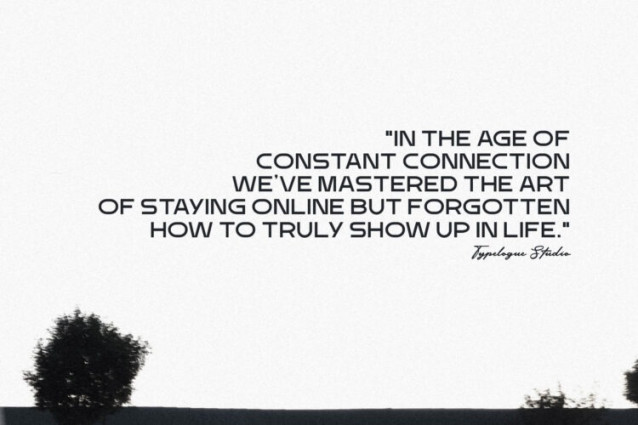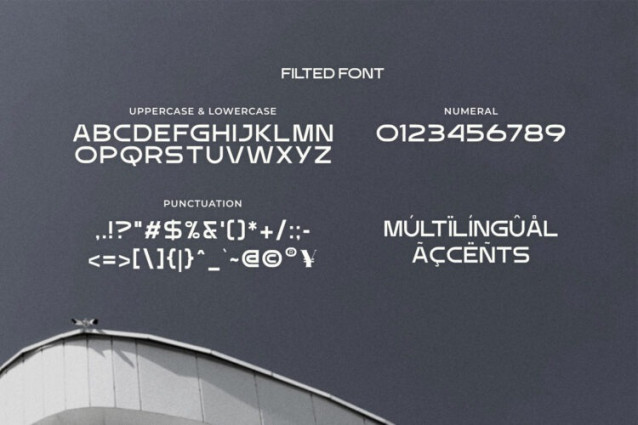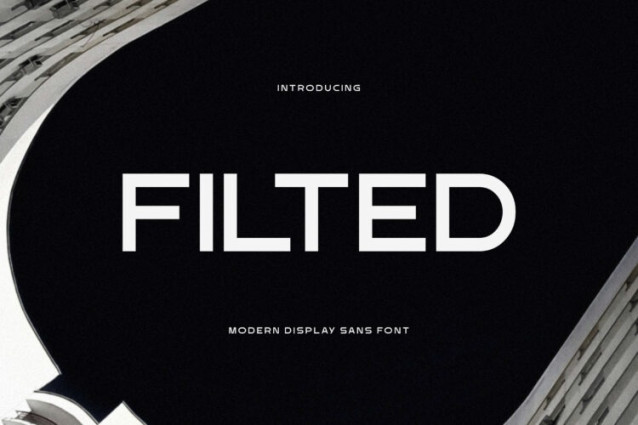
Filted Font
Filted Font is a sleek, modern sans-serif typeface that exudes minimalism and sophistication. Its clean lines and geometric structure make it perfect for contemporary designs, from digital interfaces to striking headlines. Filted’s balanced proportions and clarity ensure excellent readability, making it ideal for branding, advertising, and editorial projects.